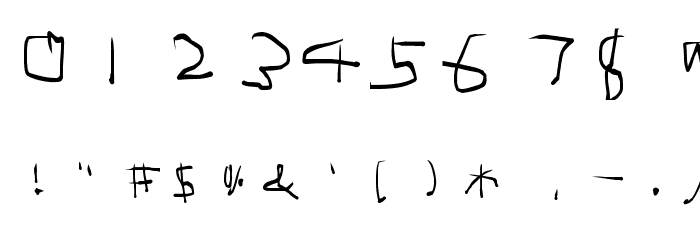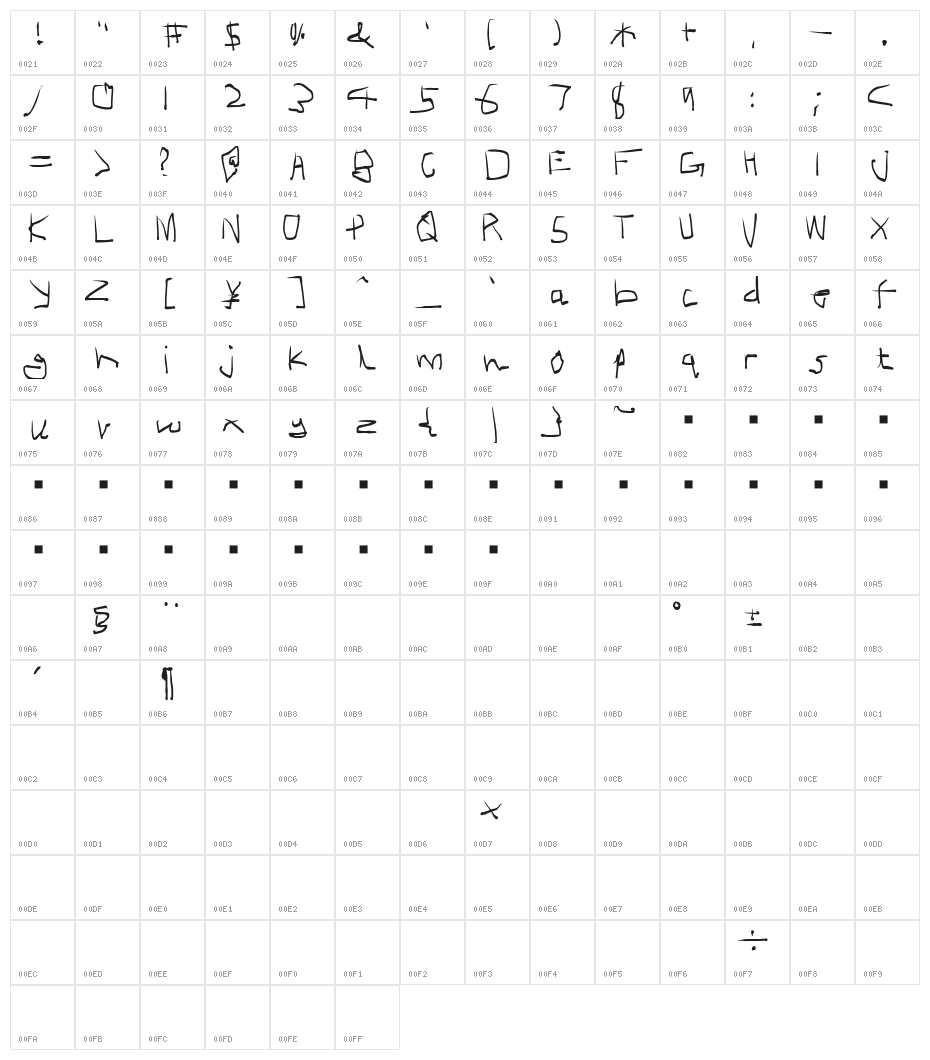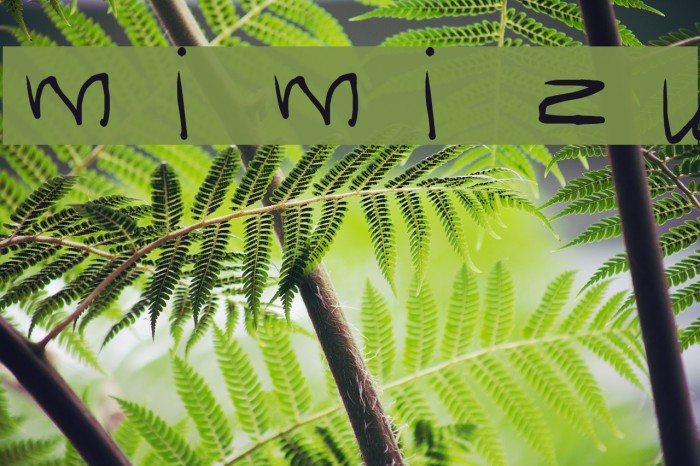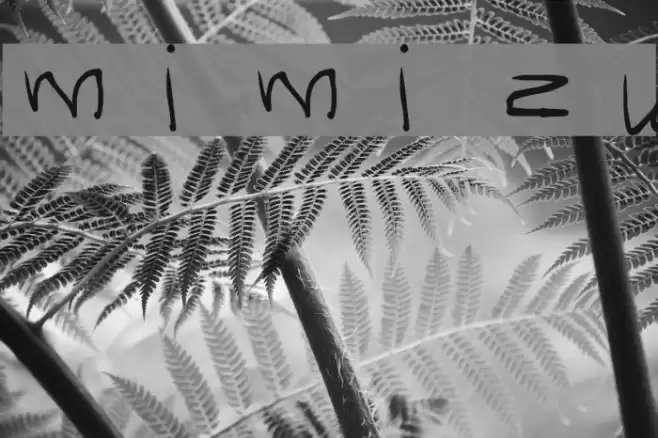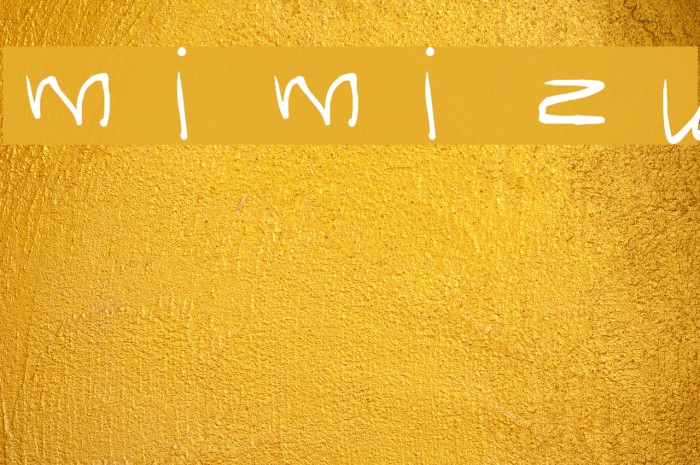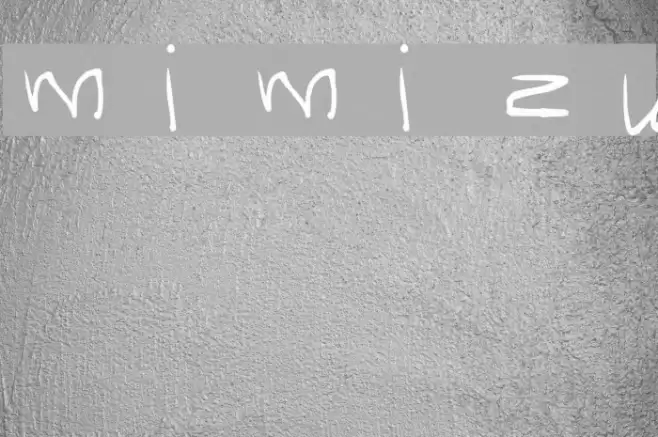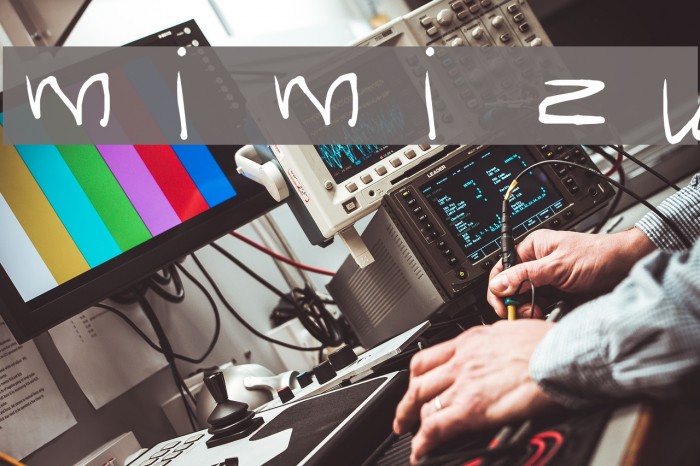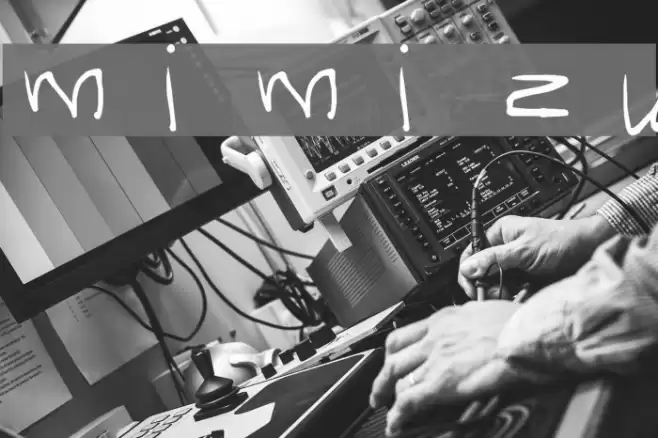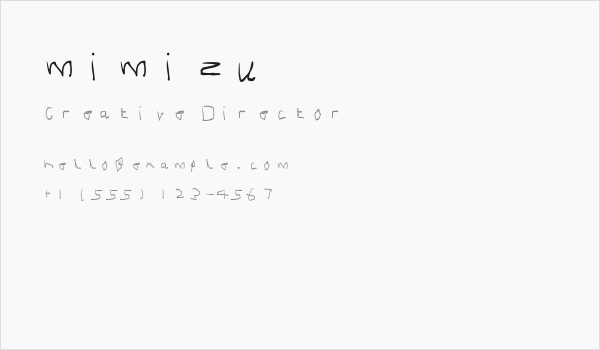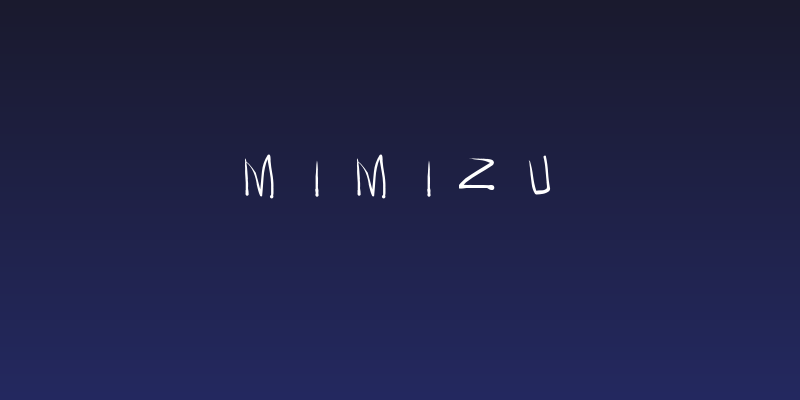
mimizu Font
mimizu Description
This font exhibits a playful and informal handwritten style, characterized by its irregular and slightly chaotic strokes. The letters have a unique, almost whimsical appearance, with varying line thicknesses and a casual, freeform structure. The uppercase and lowercase letters maintain a consistent style, while the numerals and special characters follow the same playful aesthetic. This font's charm lies in its imperfect, human touch, making it ideal for projects that require a personal, approachable feel.
| Proposed Projects | Ideal for children's books, casual invitations, personal blogs, and creative projects that benefit from a whimsical touch. |